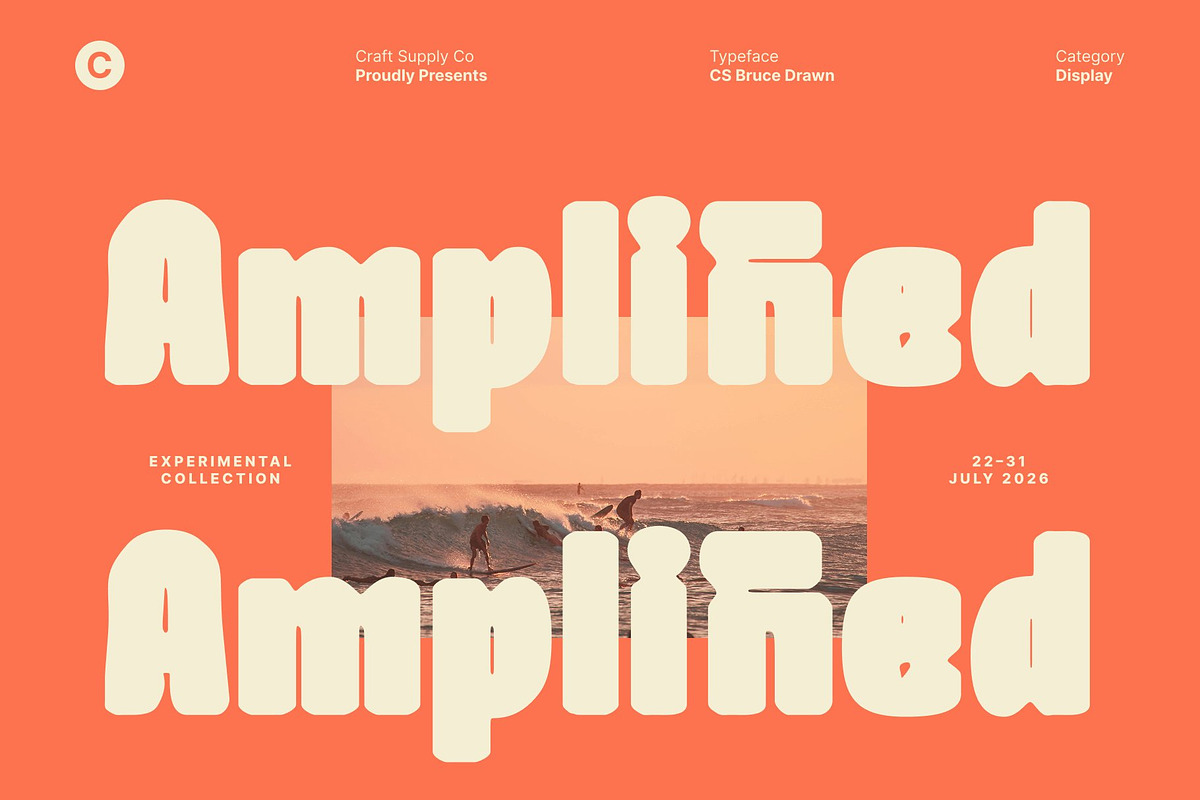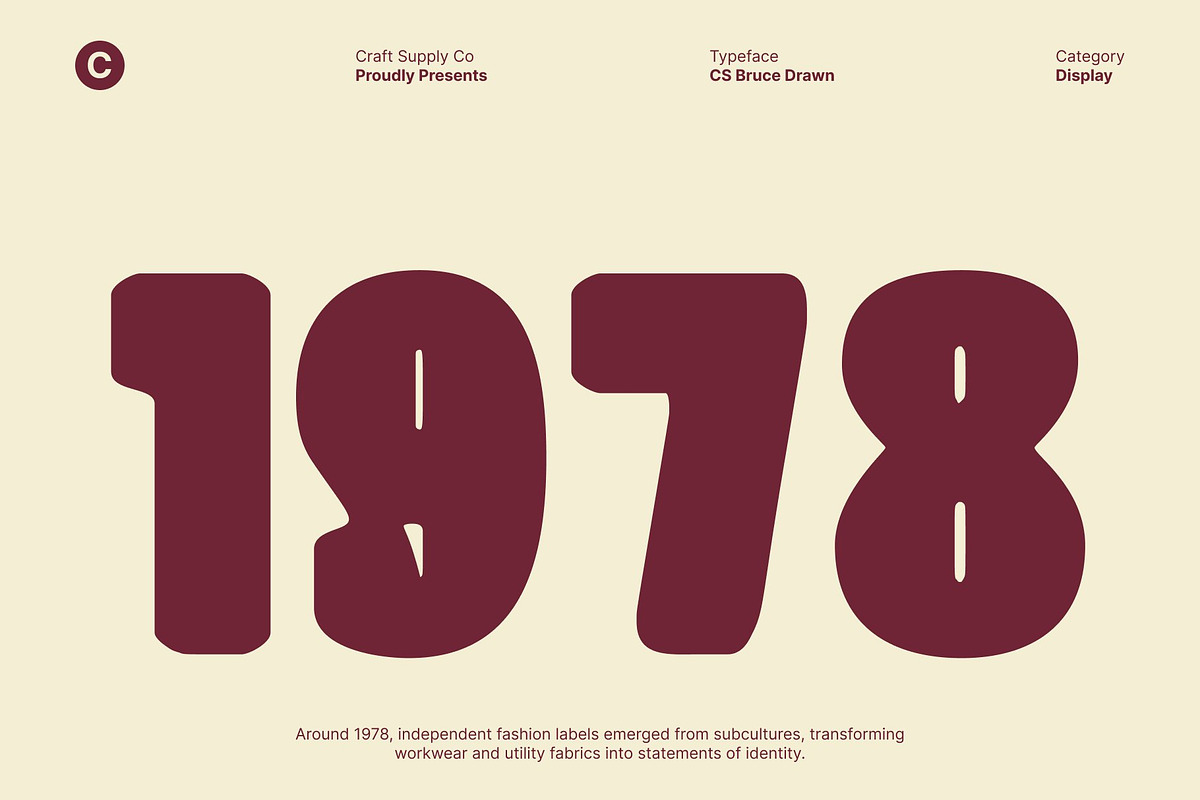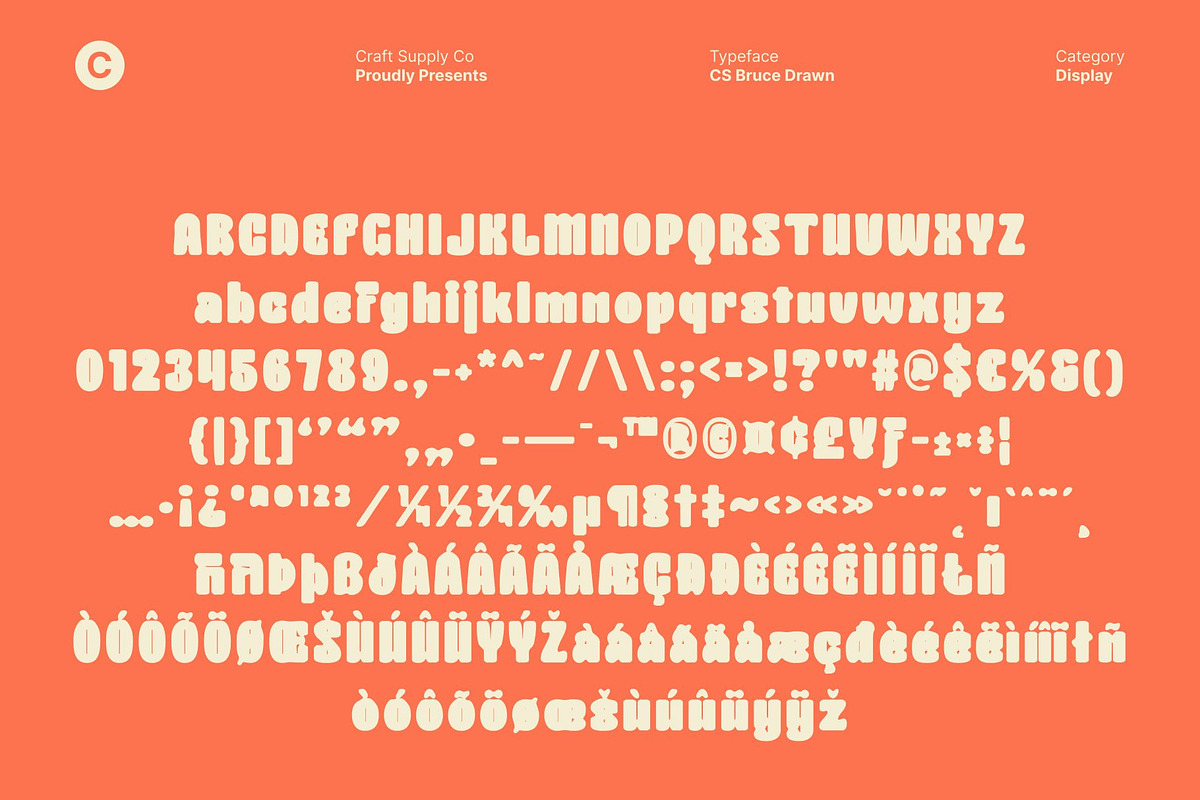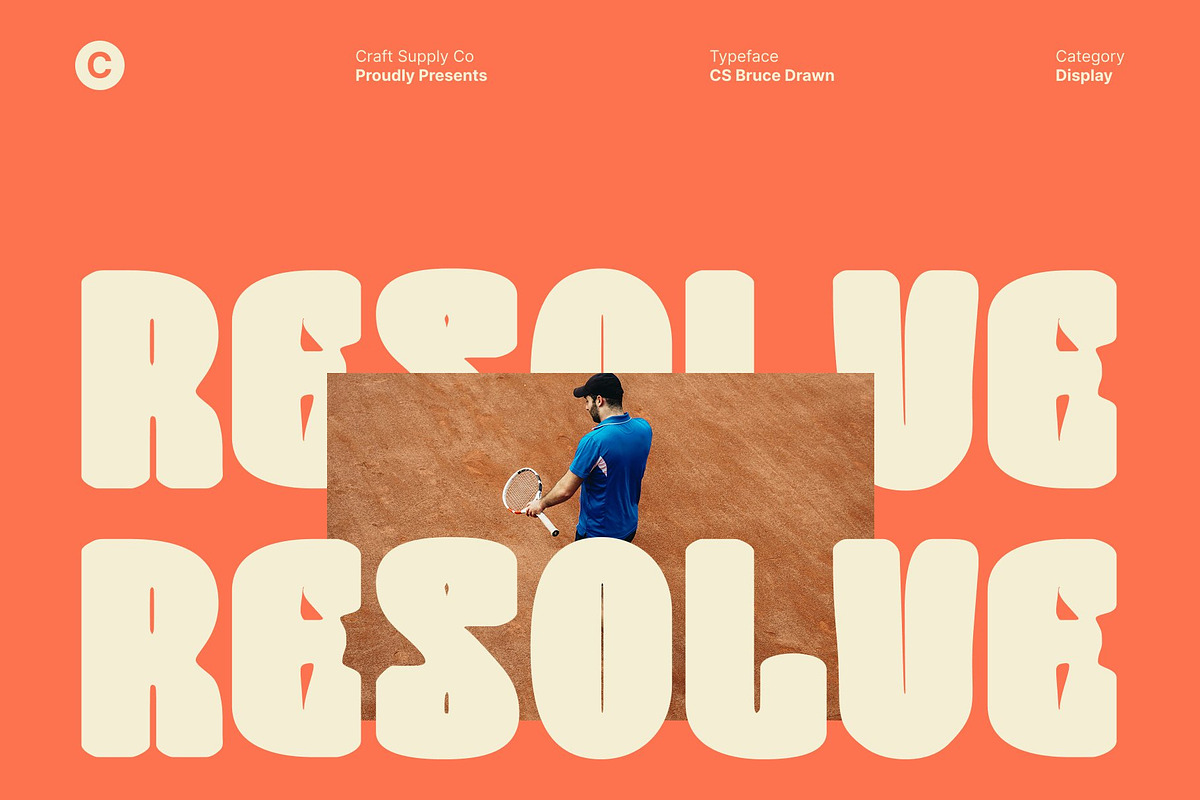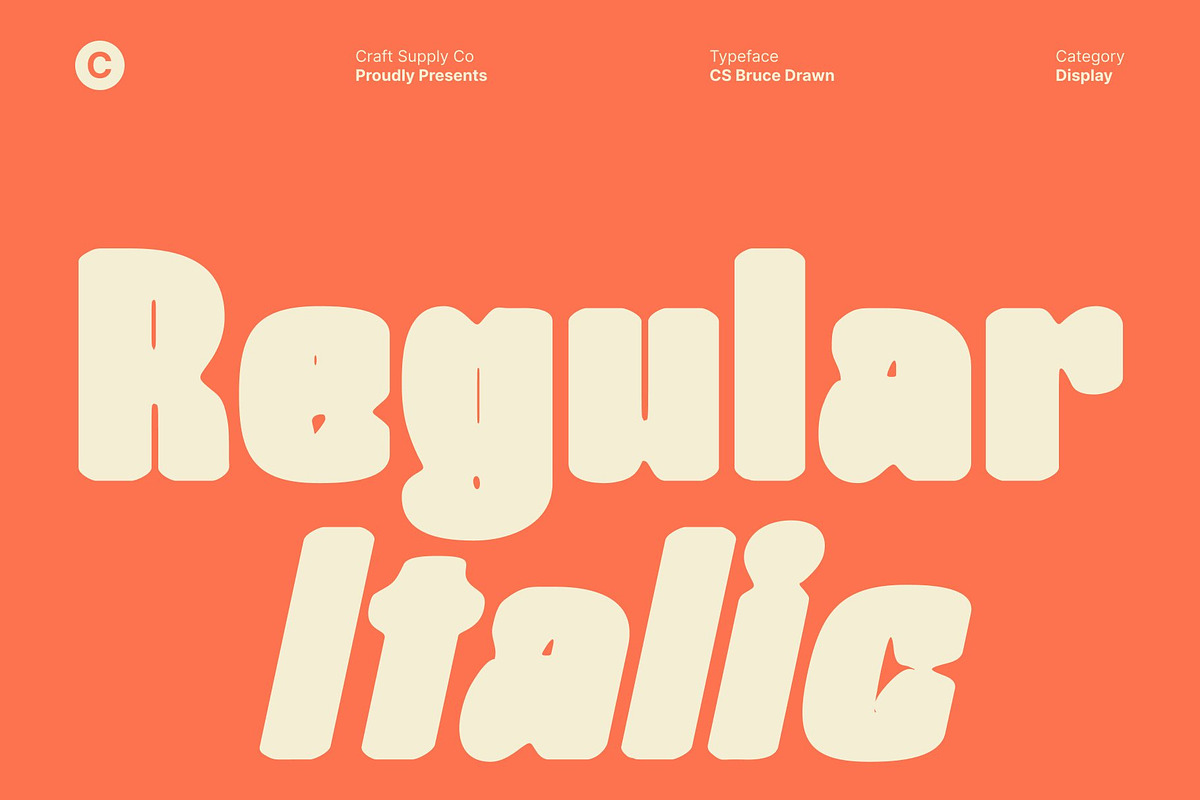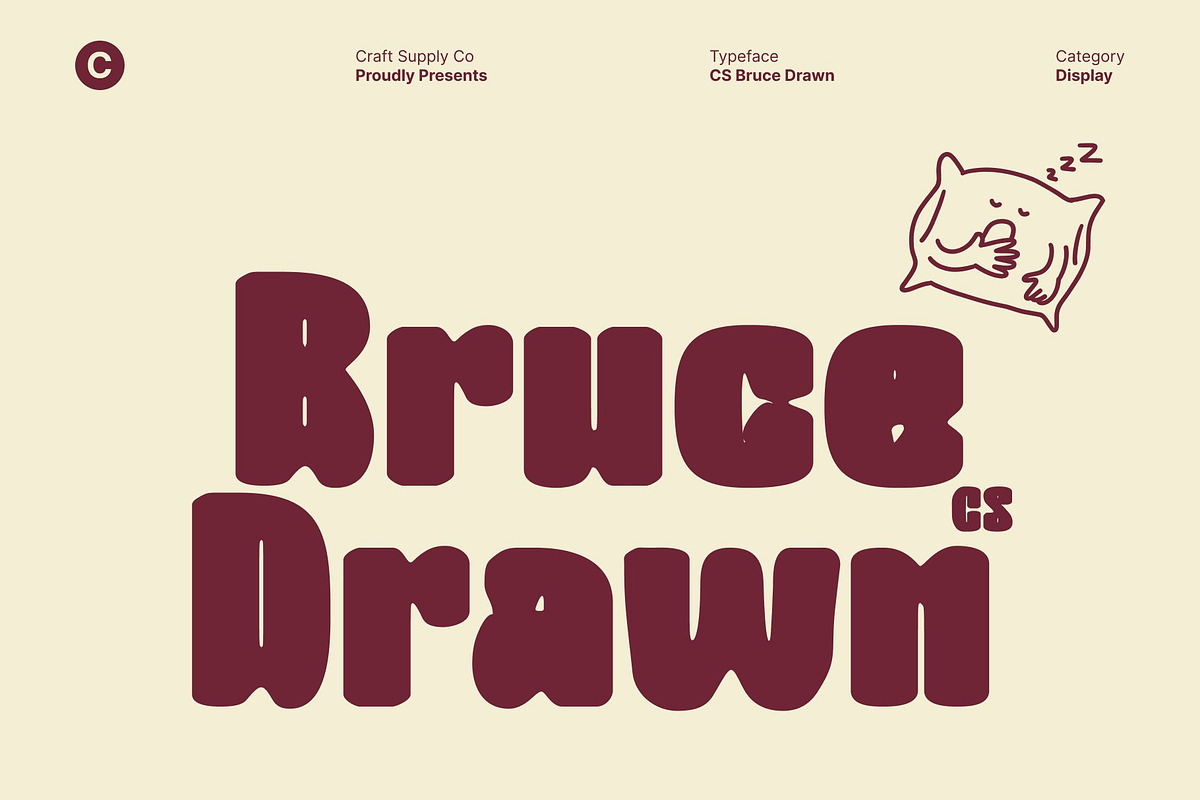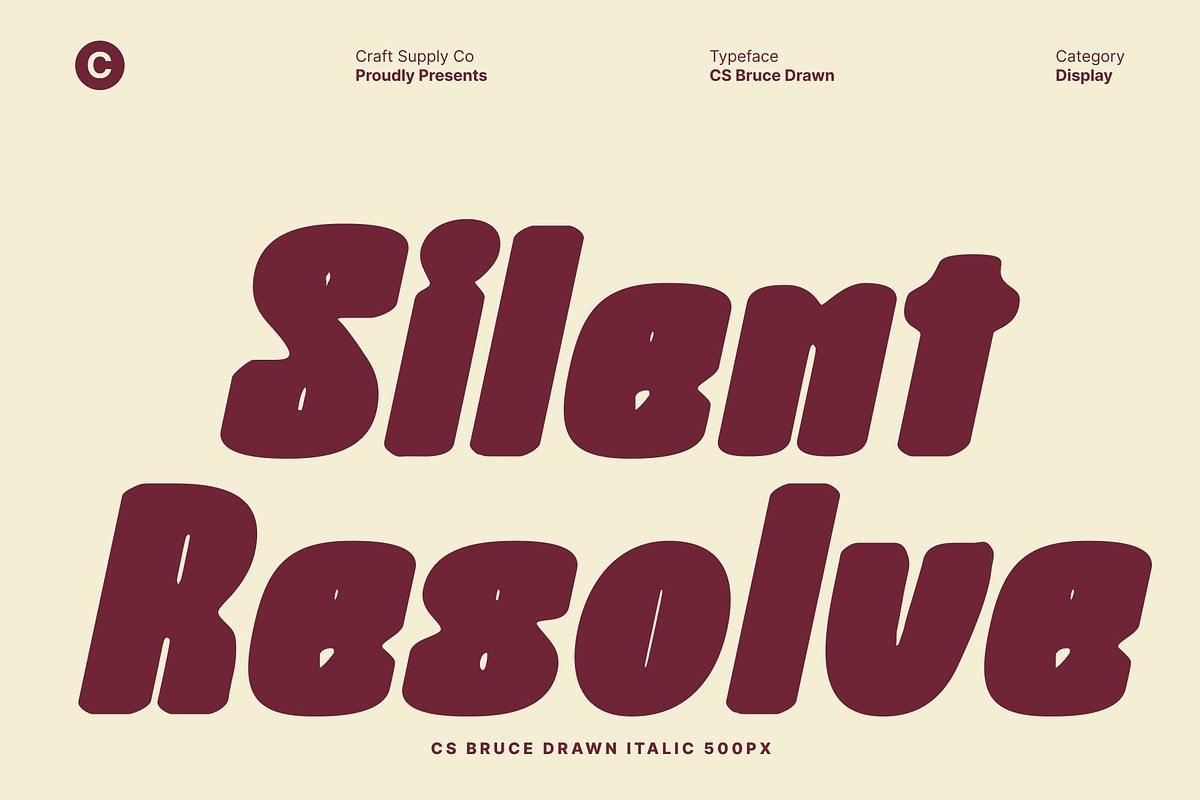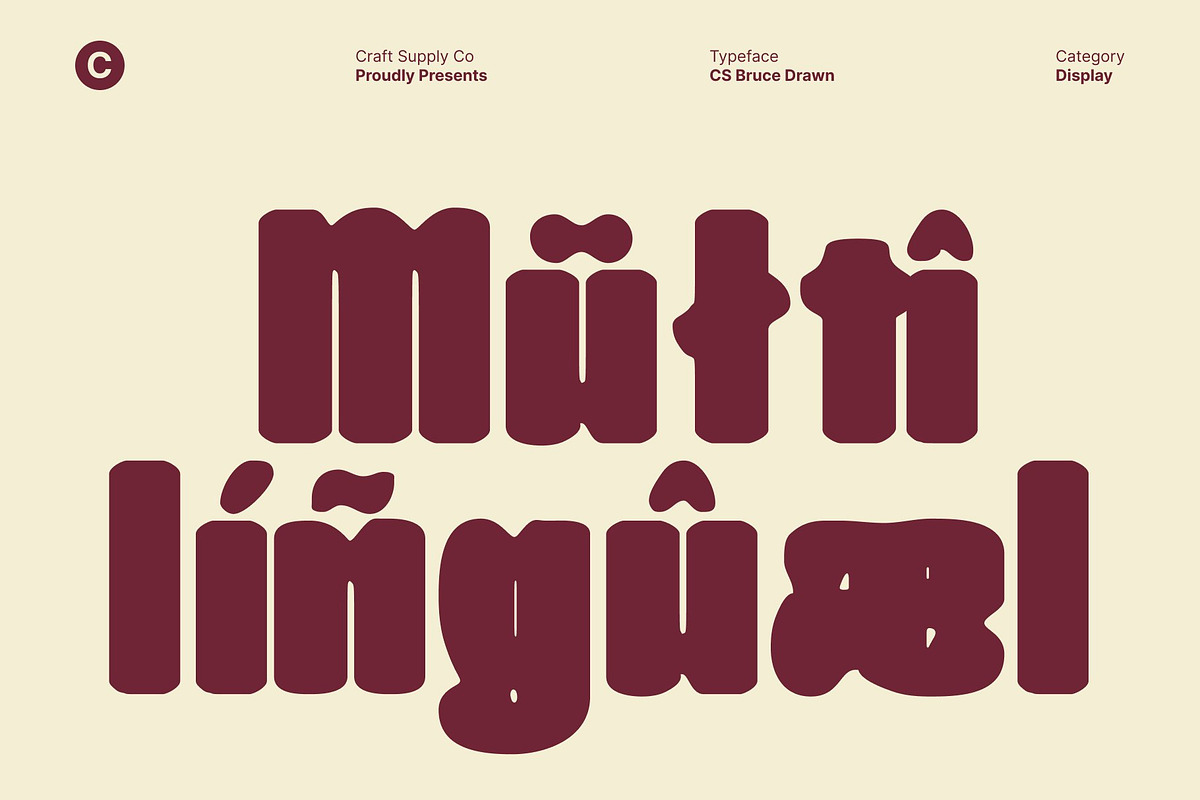
CS Bruce Drawn
CS Bruce Drawn – A Bold and Confident Display Font
Powerful Presence with a Hand-Drawn Edge This is a bold display sans serif font built to project strength, clarity, and modern confidence. Its thick, solid letterforms create an immediate visual impact, while the drawn texture introduces a subtle handcrafted character. This combination results in typography that feels strong and authoritative, yet expressive and visually engaging.
Bold Structure That Commands Attention Each character is designed with confident proportions and well-defined strokes, ensuring excellent readability even at large sizes. The bold weight gives a commanding presence, making it ideal for headlines, posters, and statement-driven layouts. The hand-drawn effect softens the rigidity just enough to add warmth and personality without losing its assertive tone.
Versatile for Modern and Creative Use This font adapts effortlessly across a wide range of applications, from branding and advertising to editorial design and packaging. Its contemporary sans serif structure feels professional and timeless, while the drawn detail adds a creative twist that helps designs stand out in crowded visual spaces.
Bold Typography with Character More than just a heavy display font, this font is a statement of confidence and purpose. It brings power, clarity, and a touch of handcrafted uniqueness to your designs perfect for creatives who want bold typography that feels modern, expressive, and unmistakably strong.